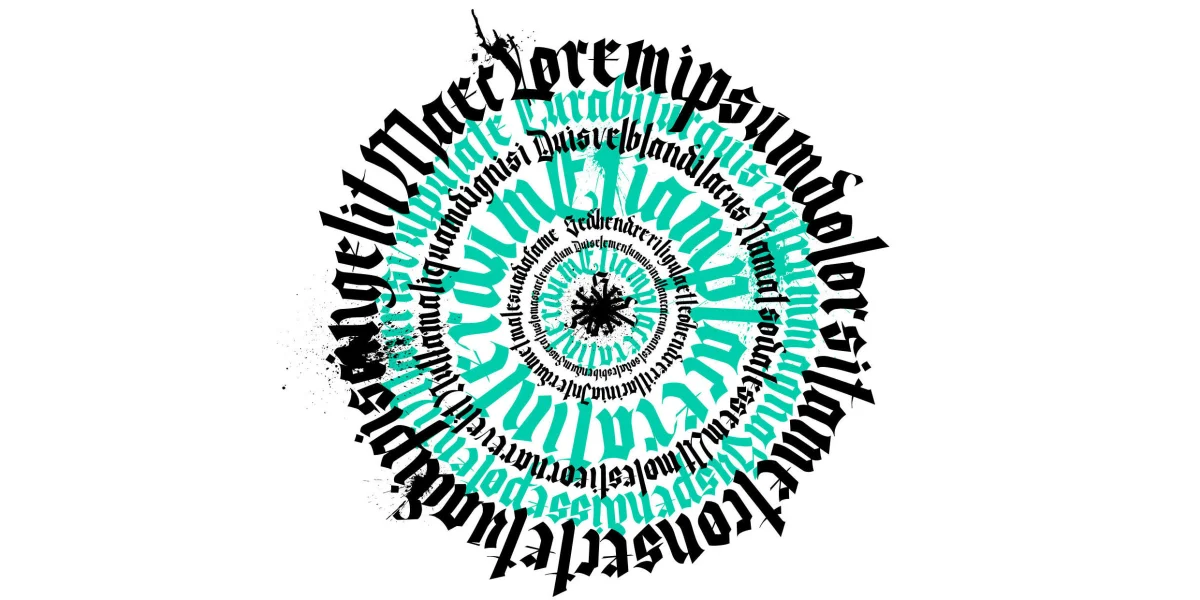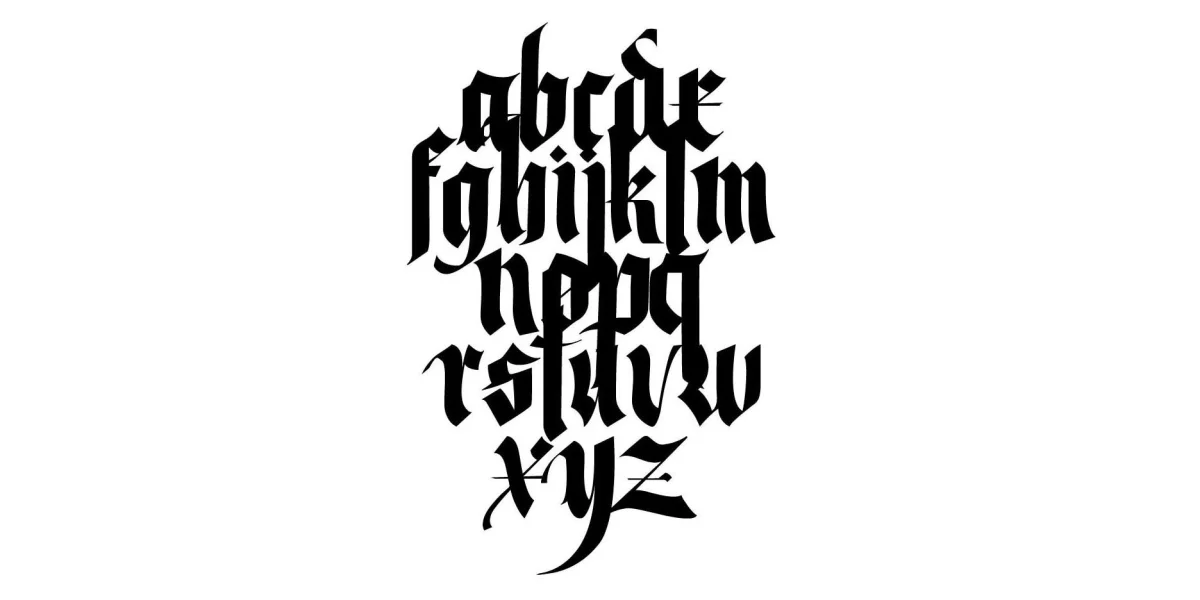
ABUSE
Abuse is a font to inspired by the culture of Calligraffiti, that is an art form combines calligraphy, typography, and graffiti.
Abuse Family:
Abuse Regular